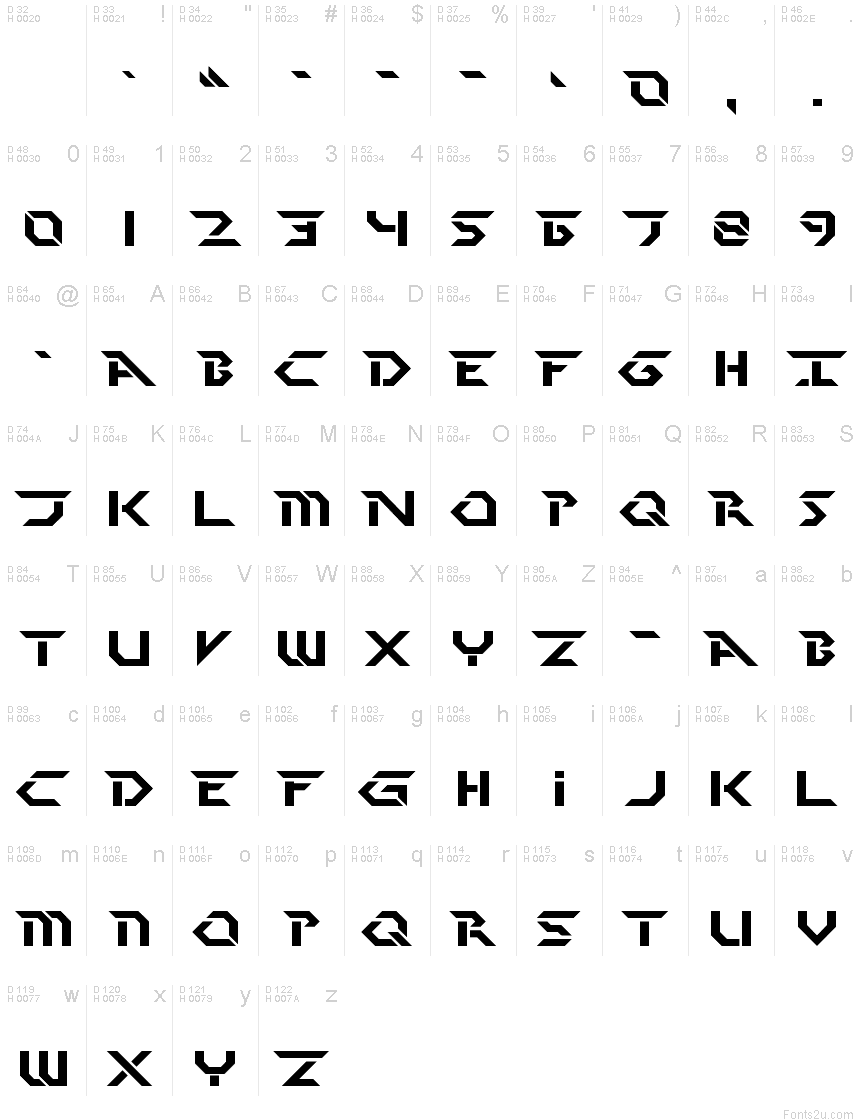
Perfect Dark BRK
Perfect Dark BRK font by ÆNIGMA FONTS is a free techno display font with sharp angular cuts, blocky forms, and interrupted strokes that give each letter a segmented, engineered rhythm. The clipped corners and narrow cuts create a hard-edged futuristic structure without adding extra decoration.
Perfect Dark BRK works well for game logos, sci-fi posters, album covers, title cards, event flyers, and tech branding where a mechanical outline can carry the design. This free font brings enough structure to anchor short display text while its broken geometry makes it useful for captions, poster accents, and interface-style graphics.